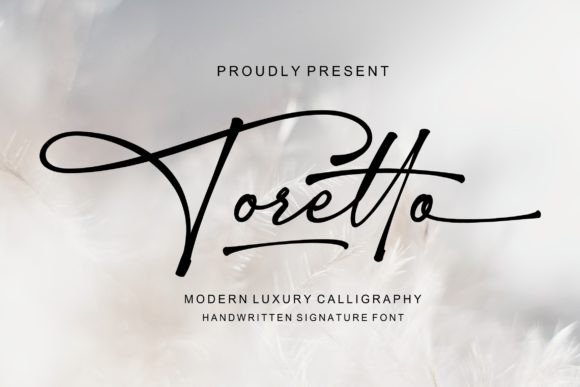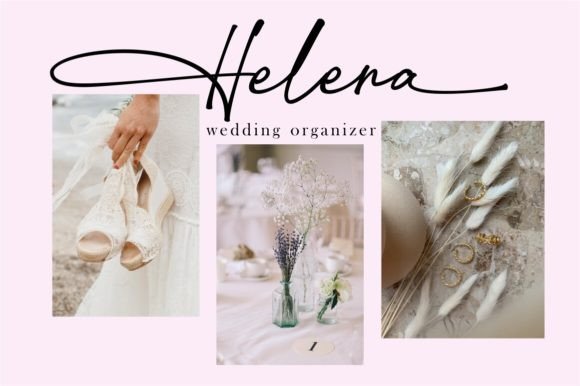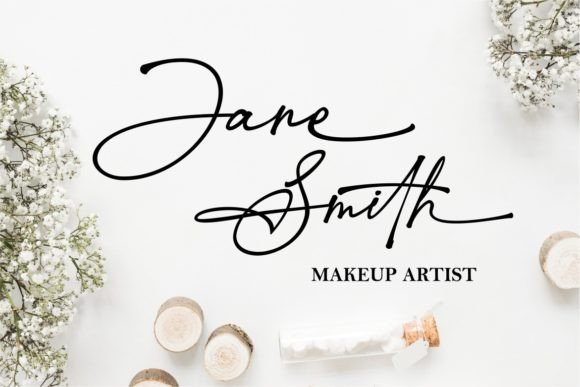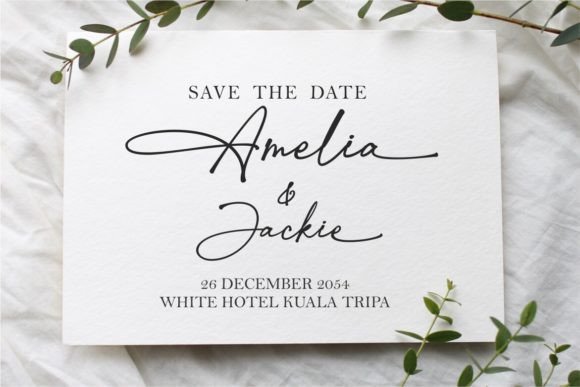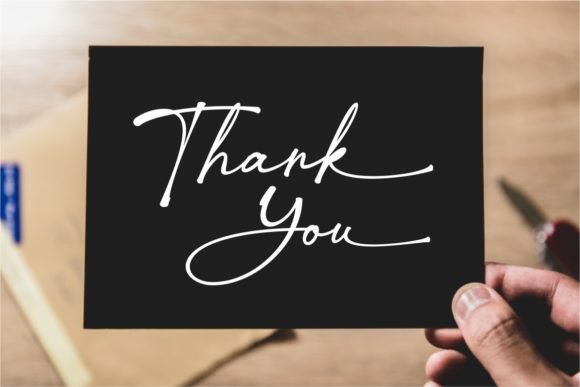
Toretto Signature is a sophisticated and elegant script font that exudes a sense of refined luxury and personal touch. With its fluid, cursive strokes and graceful letterforms, Toretto Signature mimics the fluidity of a handwritten signature, making it perfect for high-end branding, invitations, and personal projects. The font features a harmonious balance between bold and delicate lines, capturing the essence of timeless elegance and modern style. Its versatility allows it to seamlessly adapt to both formal and casual contexts, making it an ideal choice for any design that seeks to convey a sense of authenticity and class.
Toretto Font